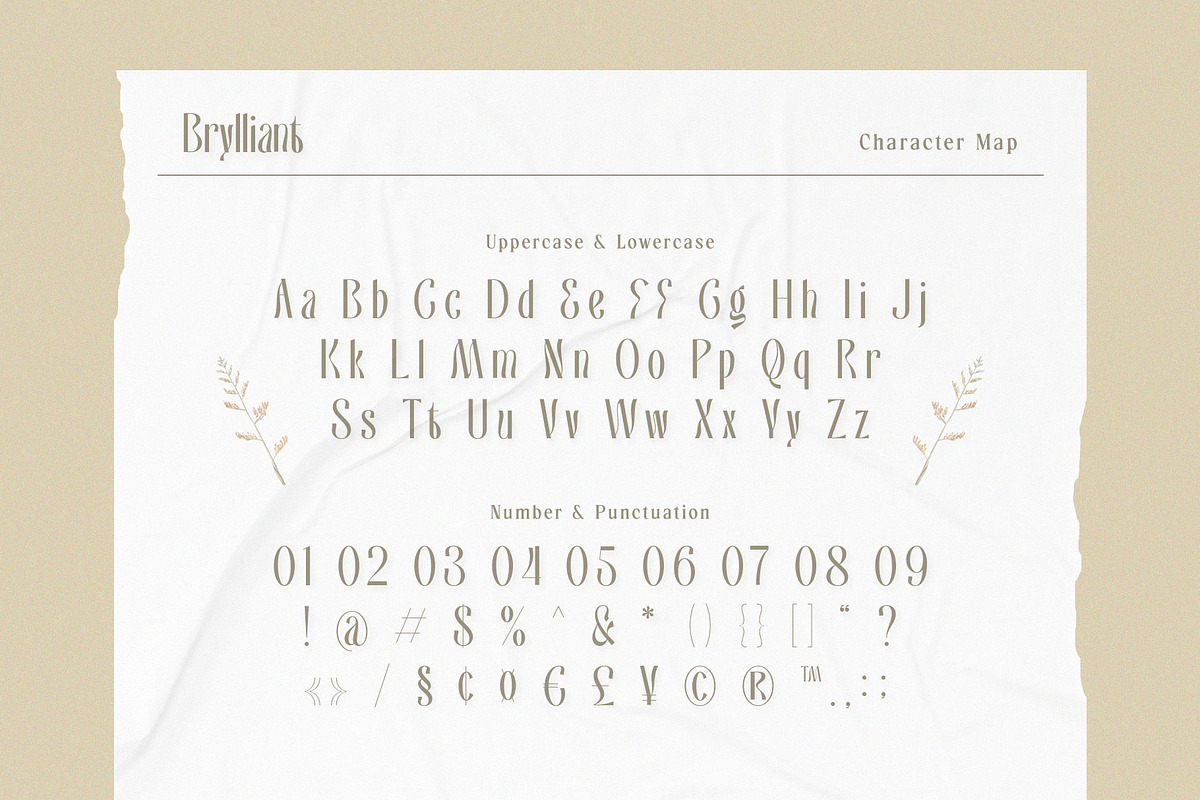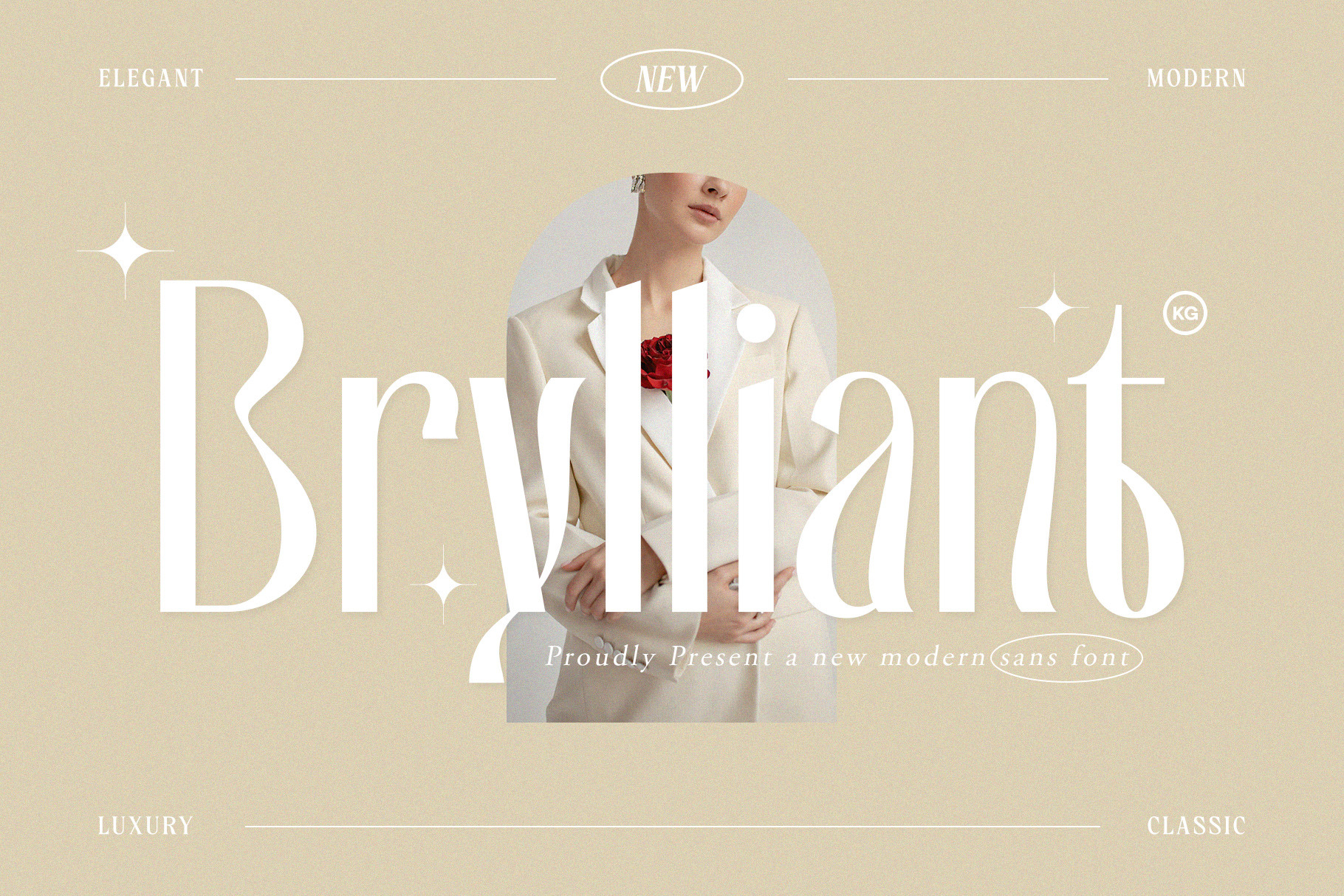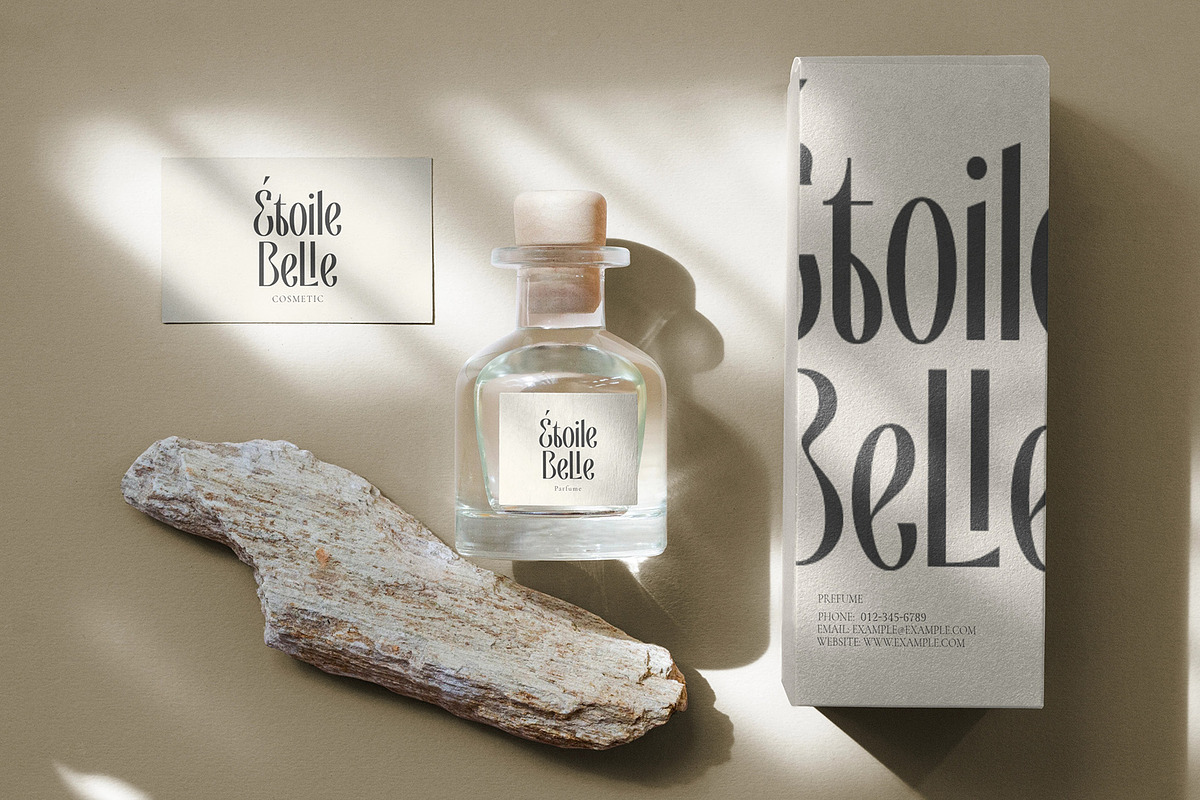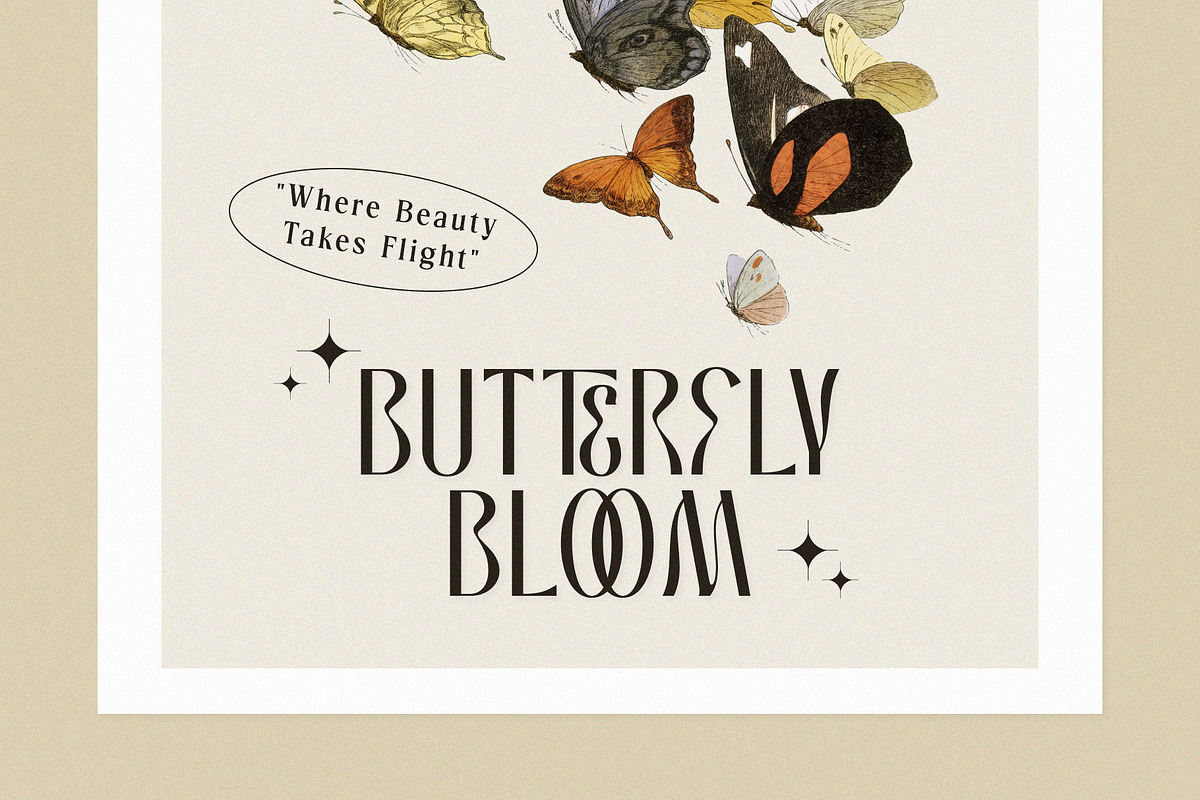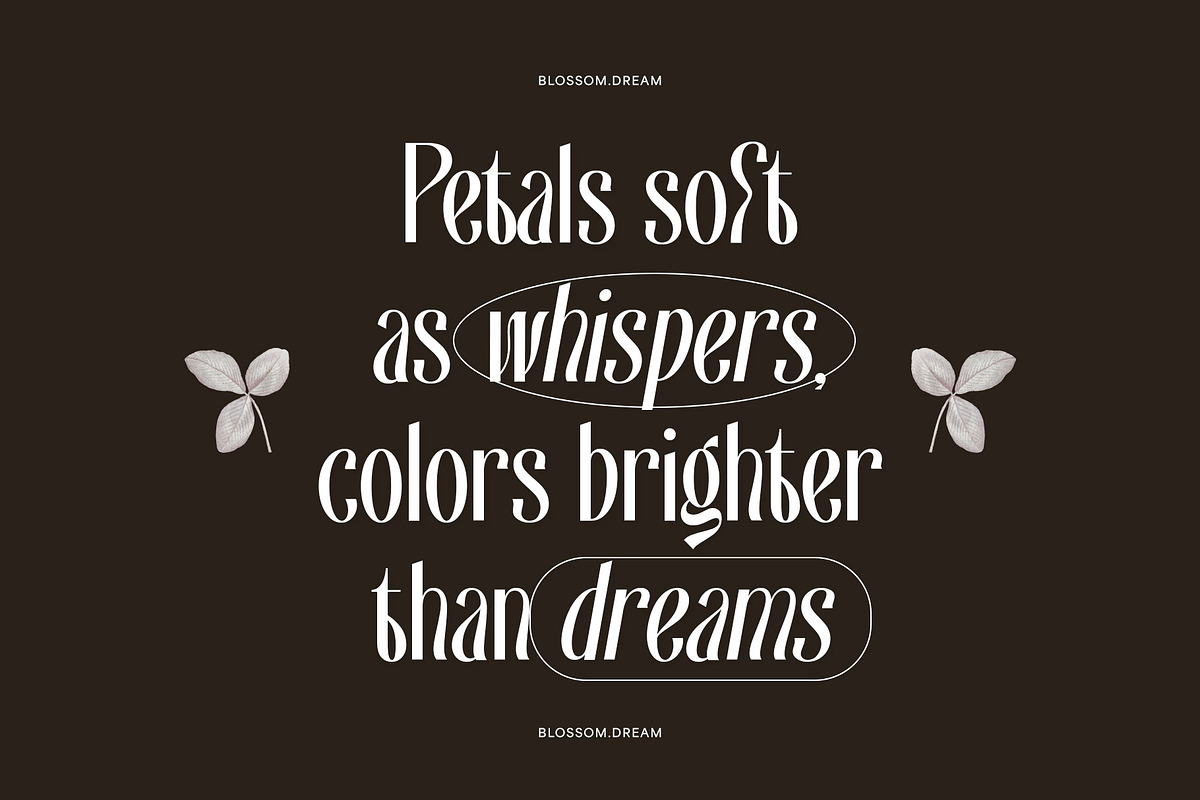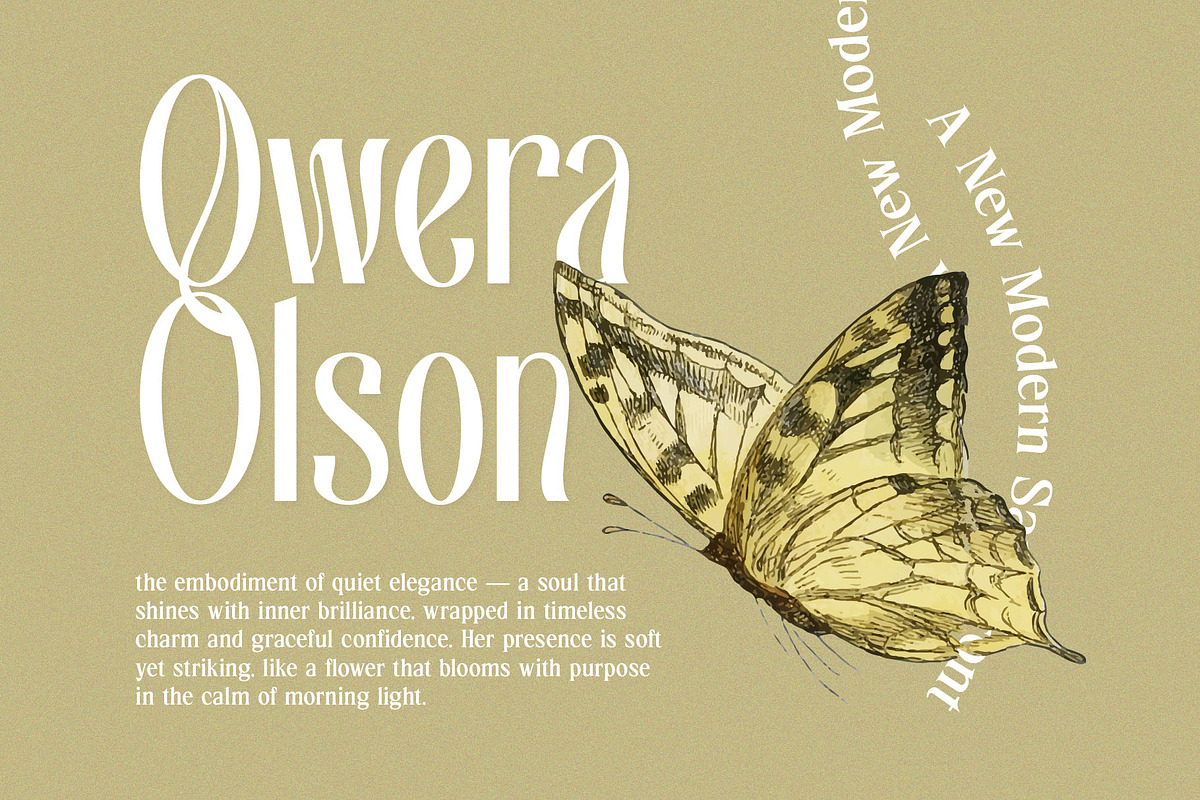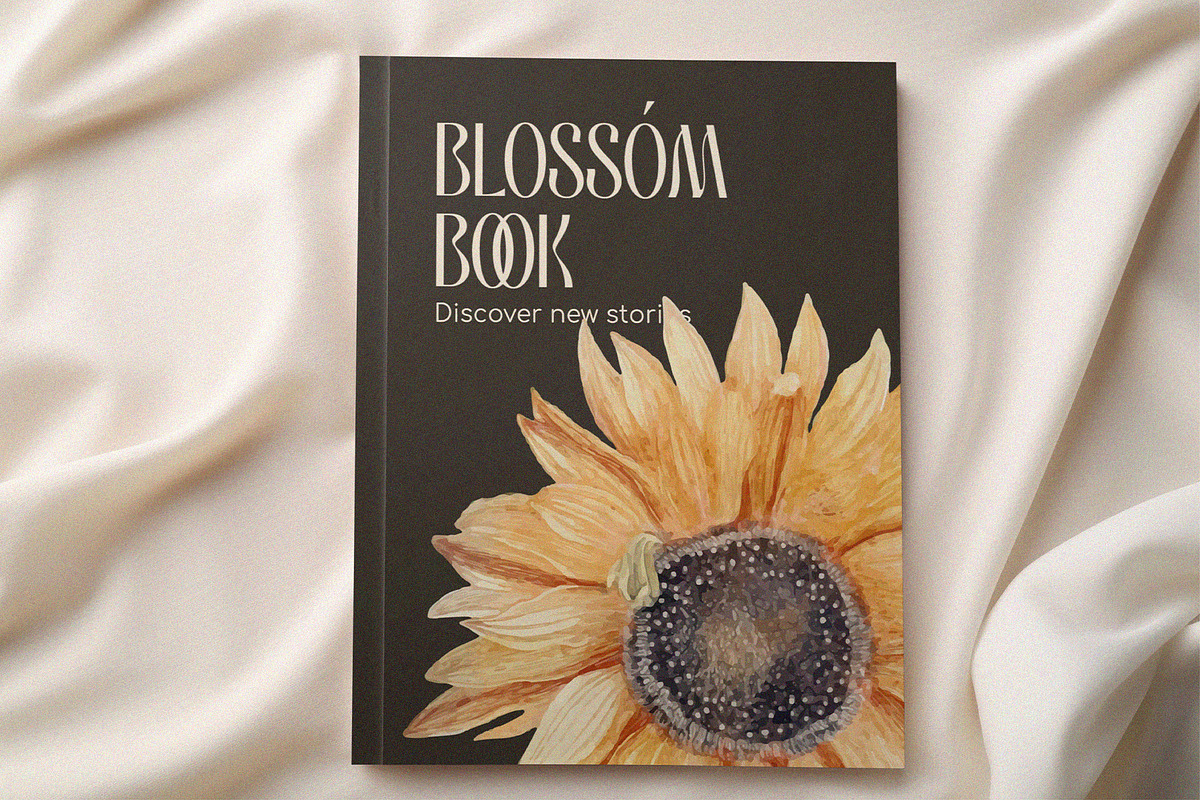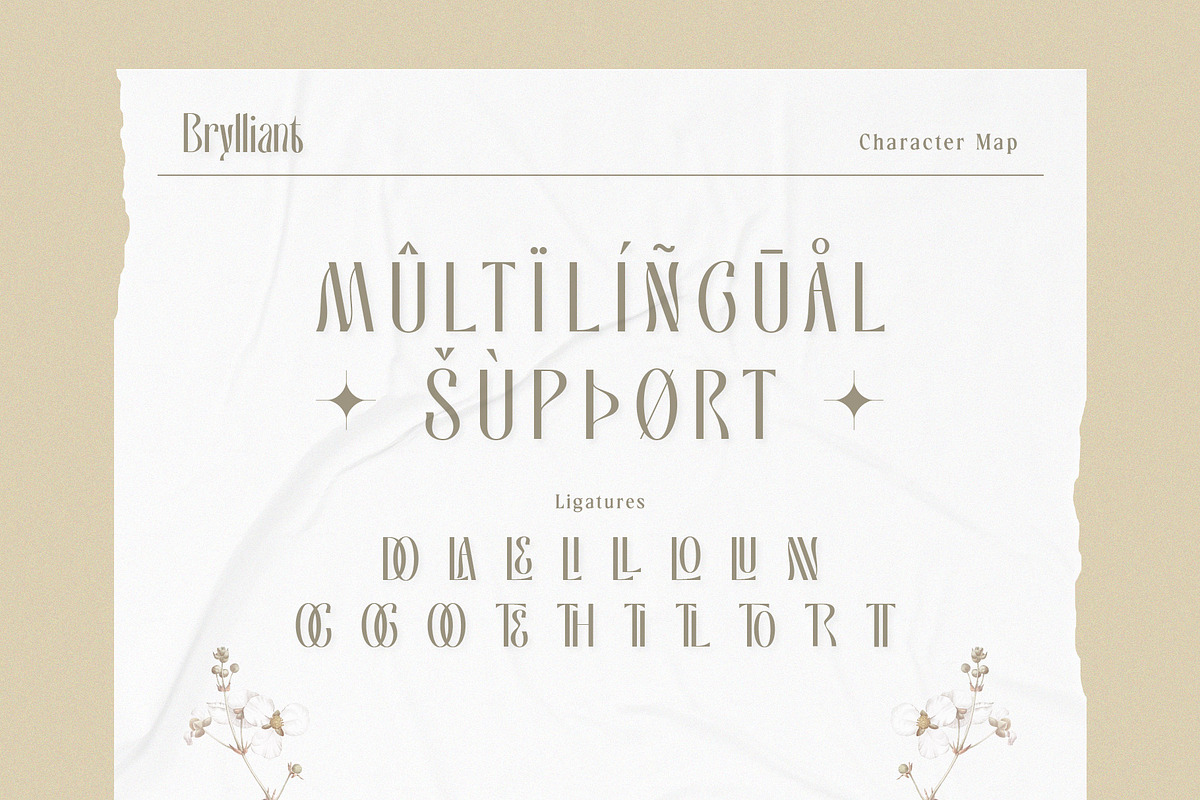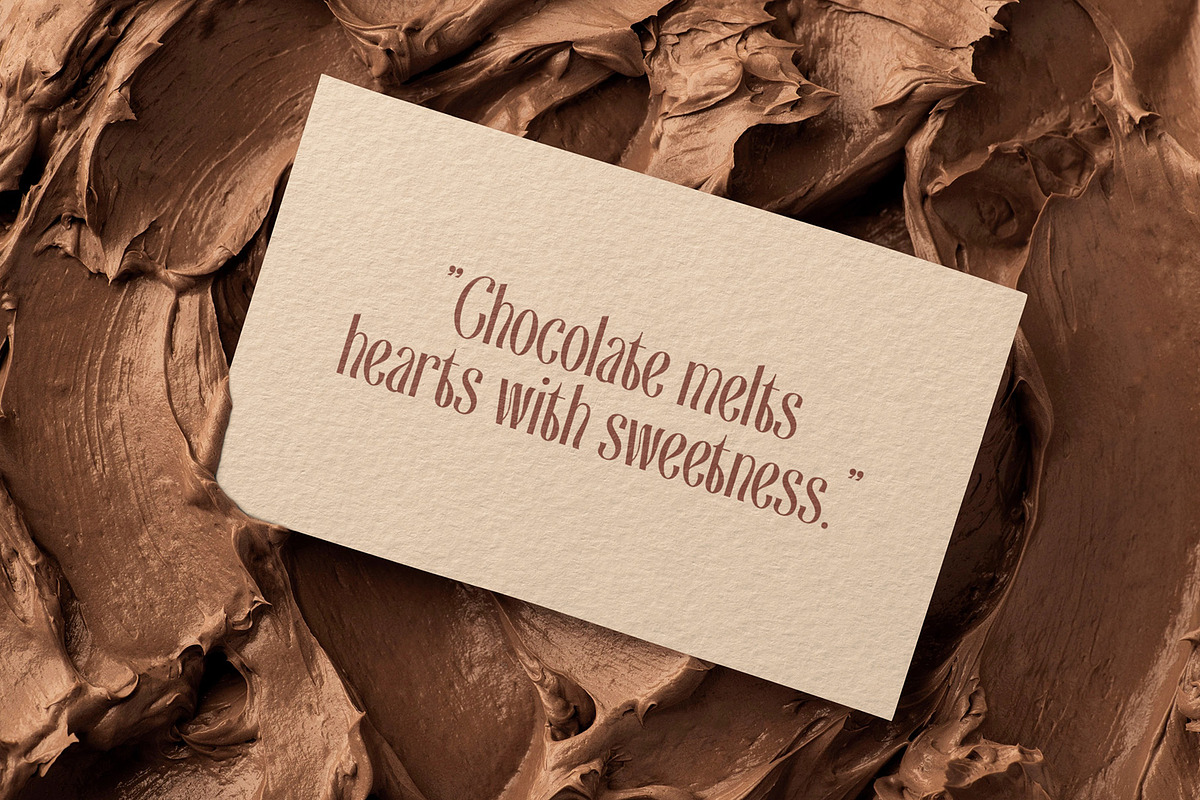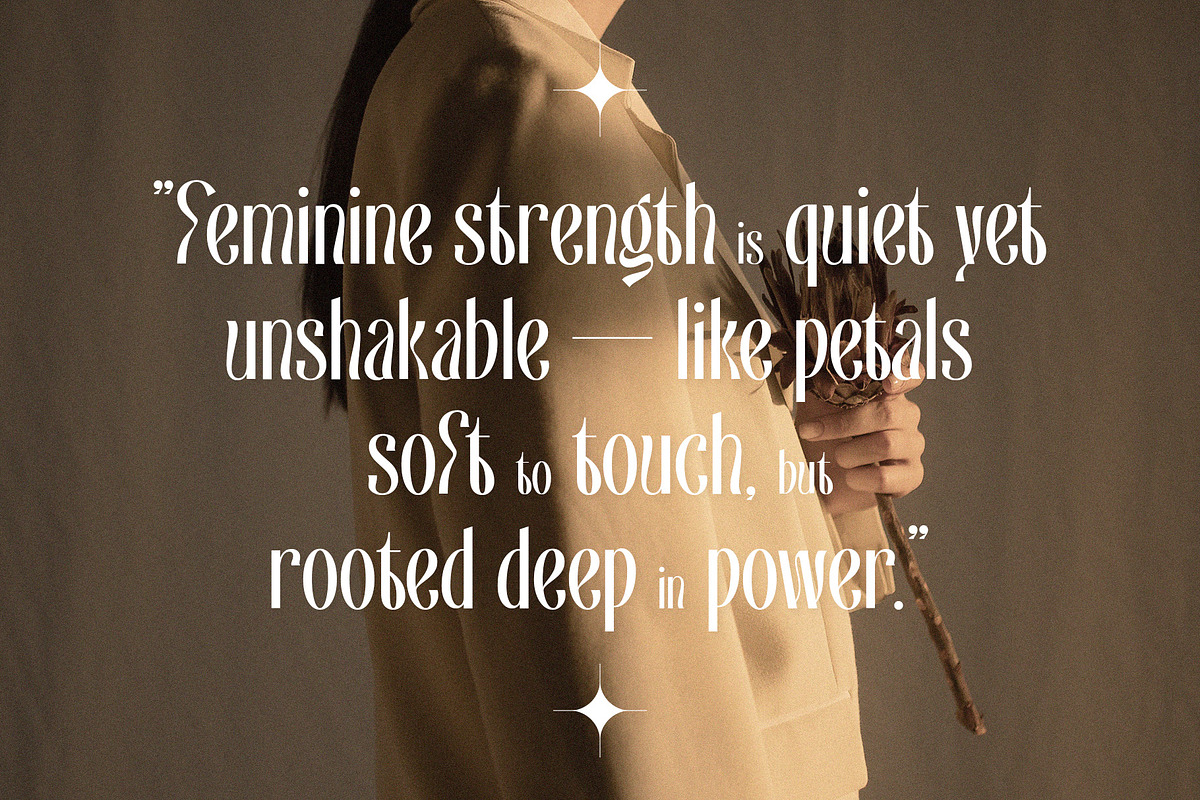
KG Brylliant | Elegant Sans Font
Introducing Brylliant, a refined and versatile modern sans serif font that blends classic elegance with contemporary charm. With its tall letterforms, graceful curves, and unique stylistic details, Brylliant is designed to elevate your creative projects with a touch of luxury and sophistication.
Perfectly suited for fashion editorials, branding, packaging, magazine layouts, wedding stationery, and high-end logo designs, Brylliant brings timeless beauty to modern typography. Each letterform is crafted with precision to create a balance of style and readability — making it ideal for both display and editorial use.
- Ligatures & stylistic alternates
- Elegant & clean design
- Luxury fashion feel
- Modern classic aesthetic
- Perfect for logos, headlines, and branding
Make your next project shine with the brilliance of Brylliant.